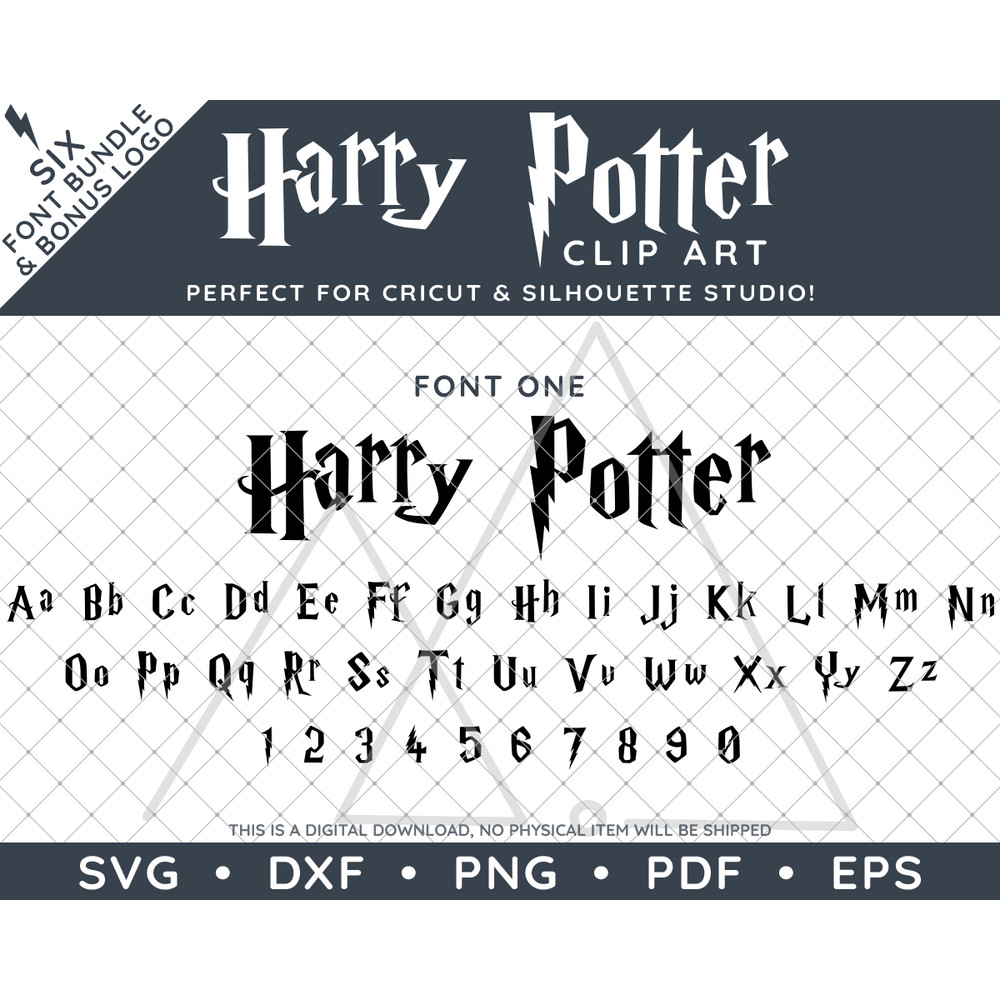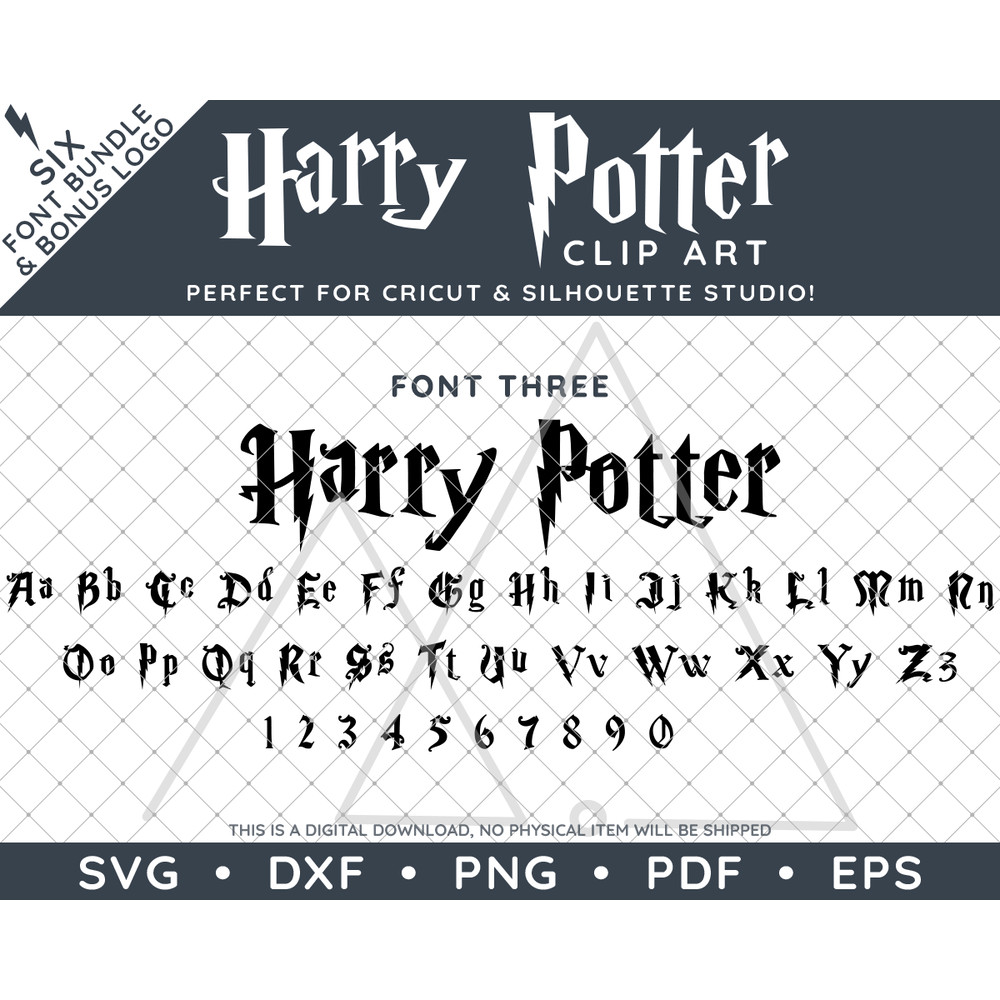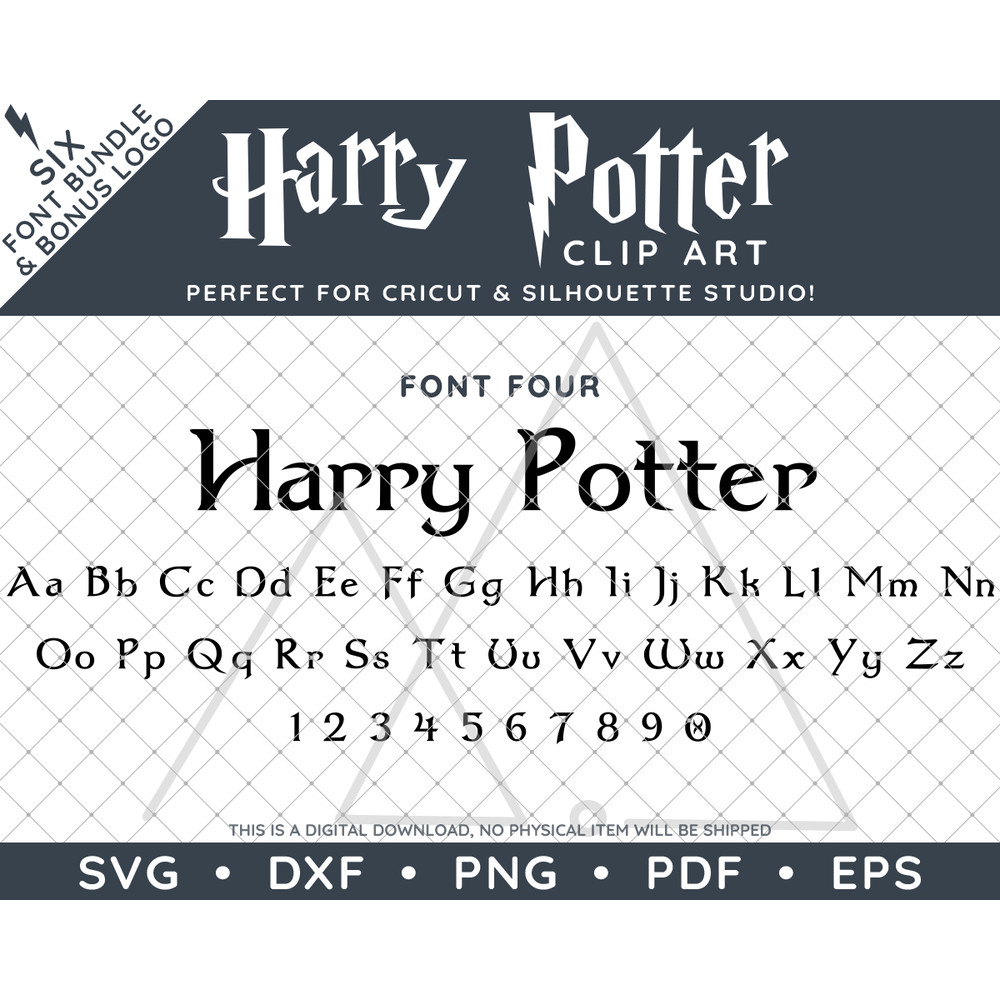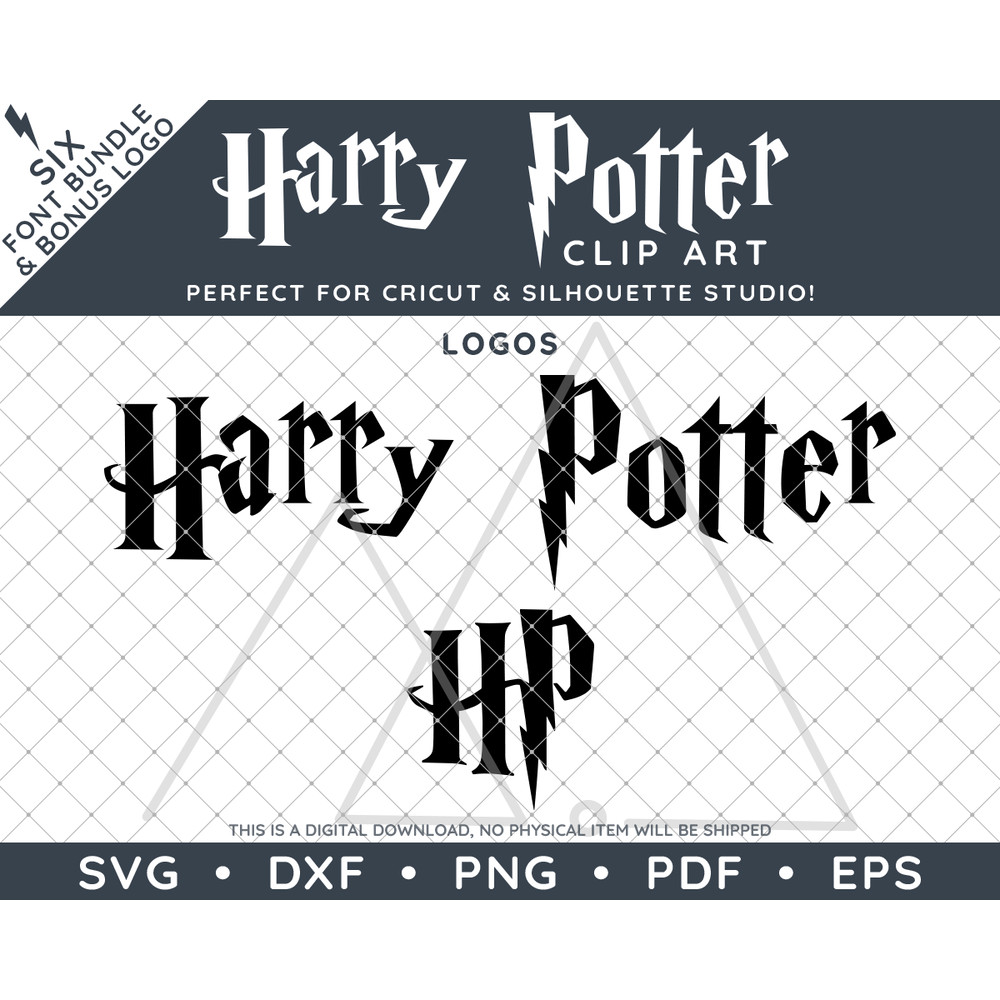
This magical Harry Potter font bundle is perfect for custom die-cutting projects using Cricut / Silhouette Studio! Unleash your creativity with other Harry Potter clip art designs in my shop.